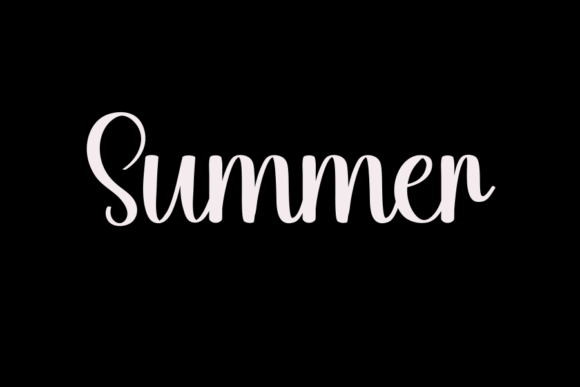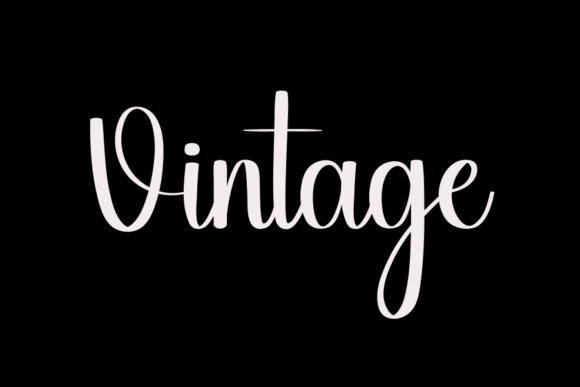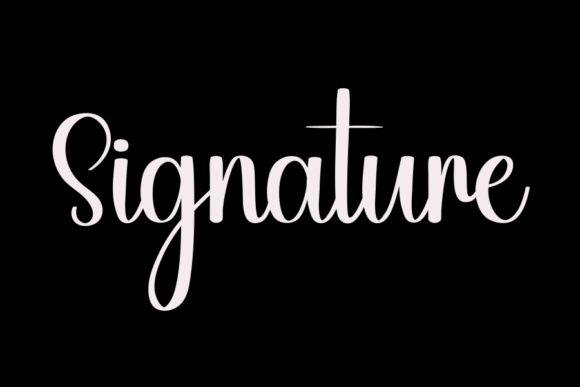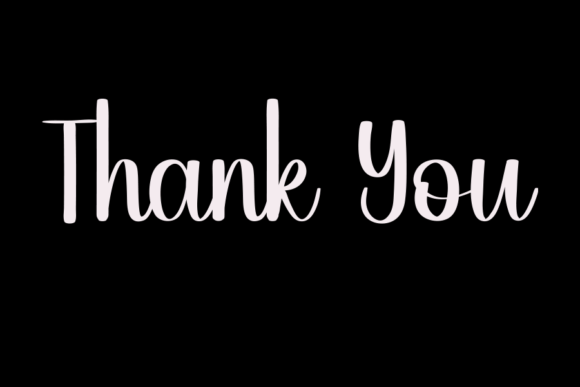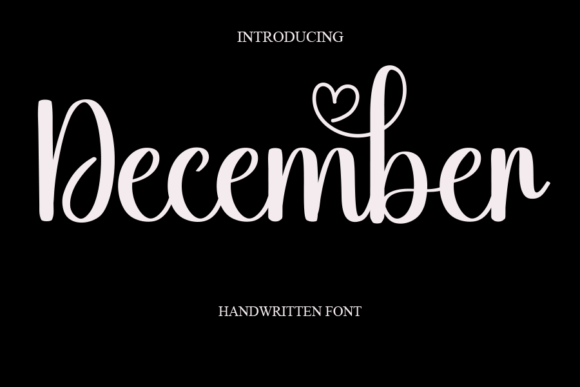
Introducing December Font: A Simple Handwritten Style for Your Creative Projects
Are you looking for a font that can add a touch of simplicity and natural elegance to your designs? Look no further than December Font, a beautiful handwritten font that’s perfect for a wide range of applications. In this article, we’ll explore the features and benefits of December Font, and show you how it can elevate your creative projects.
What is December Font?
December Font is a simple handwritten font that’s designed to bring a sense of warmth and approachability to your designs. With its clean lines and effortless charm, this font is perfect for adding a personal touch to your work. Whether you’re creating greeting cards, headlines, or any other type of design, December Font is a versatile choice that’s sure to impress.
Key Features of December Font
- Handwritten style: December Font has a beautiful, handwritten style that’s perfect for adding a personal touch to your designs.
- Simple and elegant: With its clean lines and simple design, December Font is a great choice for creating elegant and sophisticated designs.
- Versatile: December Font can be used for a wide range of applications, from greeting cards to headlines and more.
- Easy to read: Despite its handwritten style, December Font is easy to read and understand, making it perfect for body text and headlines.
Benefits of Using December Font
So why should you choose December Font for your next project? Here are just a few benefits of using this beautiful font:
- Adds a personal touch: December Font’s handwritten style adds a personal touch to your designs, making them feel more approachable and relatable.
- Creates a natural feel: With its simple and elegant design, December Font creates a natural feel that’s perfect for designs that need to feel organic and earthy.
- Versatile: December Font can be used for a wide range of applications, making it a great addition to your font library.
- Easy to use: December Font is easy to use and pairs well with a wide range of other fonts, making it easy to incorporate into your designs.
Using December Font in Your Designs
So how can you use December Font in your designs? Here are a few ideas to get you started:
- Greeting cards: December Font is perfect for creating beautiful and heartfelt greeting cards for any occasion.
- Headlines: With its simple and elegant design, December Font is a great choice for headlines and titles.
- Body text: December Font is easy to read and understand, making it perfect for body text and paragraphs.
- Branding: December Font can be used to create beautiful and elegant branding materials, such as logos and business cards.
Tips for Pairing December Font with Other Fonts
December Font pairs well with a wide range of other fonts, but here are a few tips for pairing it with other fonts:
- Pair with serif fonts: December Font pairs well with serif fonts, such as Times New Roman or Georgia, for a classic and elegant look.
- Pair with sans-serif fonts: December Font also pairs well with sans-serif fonts, such as Arial or Helvetica, for a modern and clean look.
- Experiment with script fonts: December Font pairs beautifully with script fonts, such as Pacifico or Great Vibes, for a elegant and sophisticated look.
In conclusion, December Font is a beautiful and versatile handwritten font that’s perfect for adding a simple and natural feel to your designs. With its clean lines, effortless charm, and wide range of applications, December Font is a great addition to any font library. Whether you’re a designer, crafter, or DIY enthusiast, December Font is a great choice for any project.